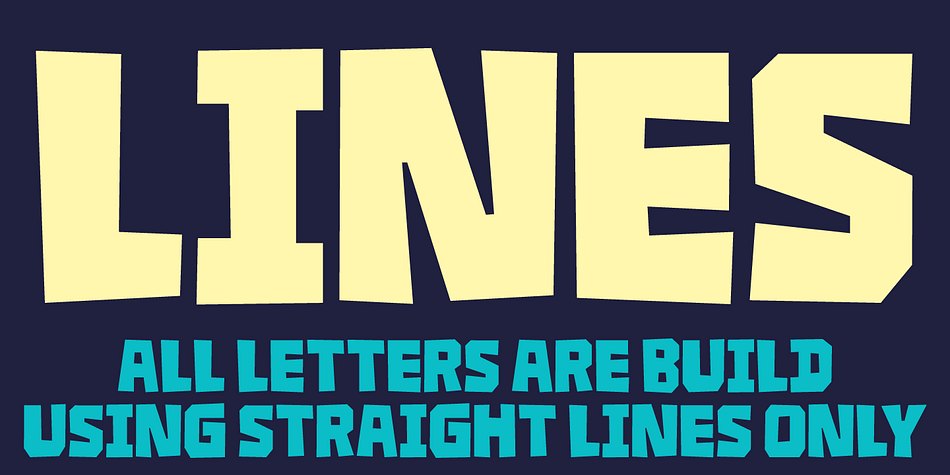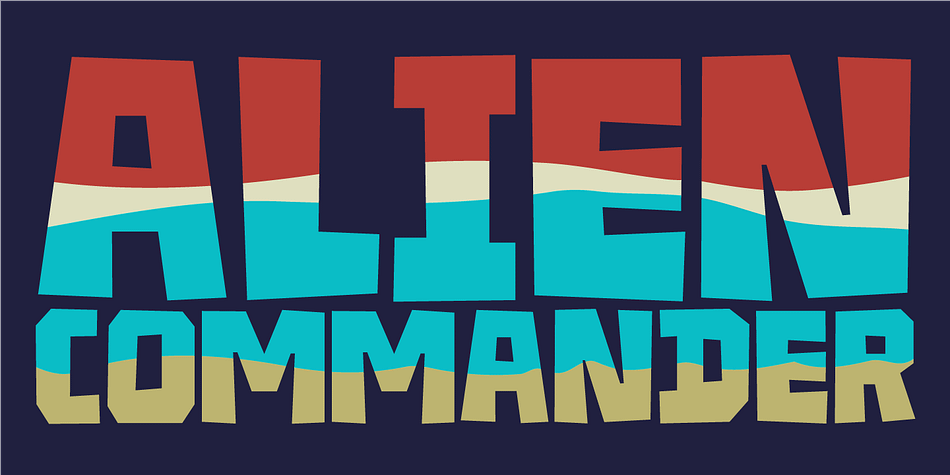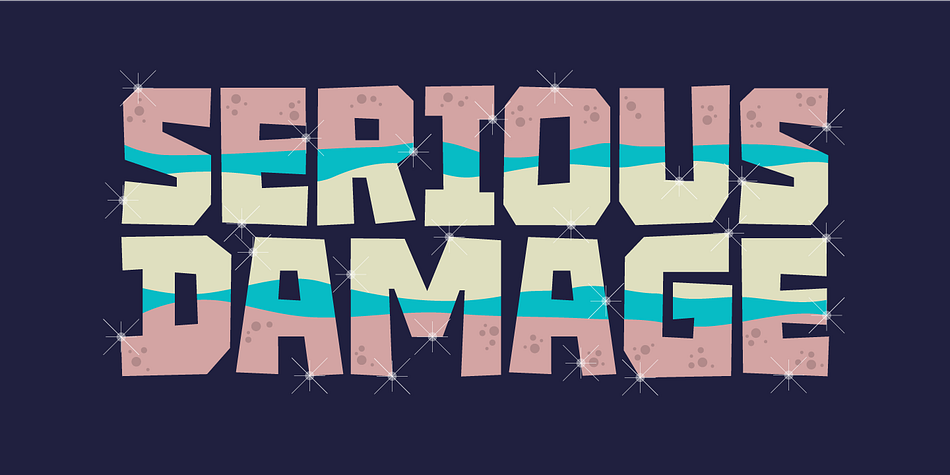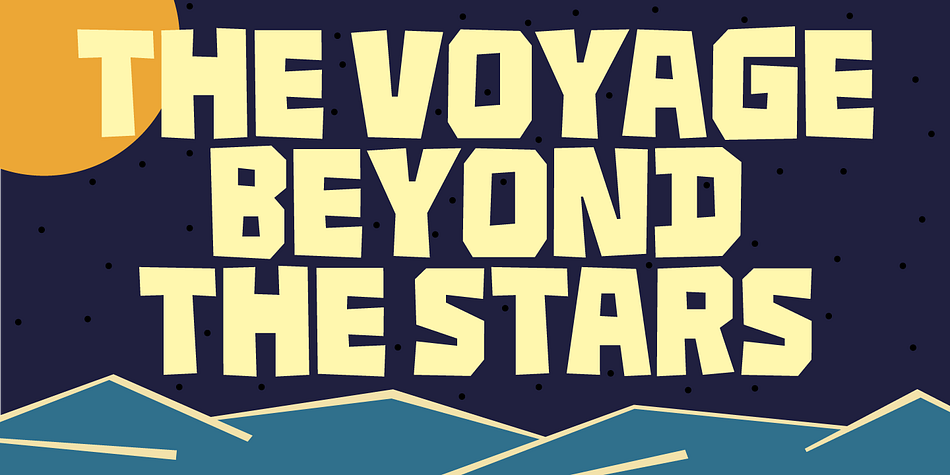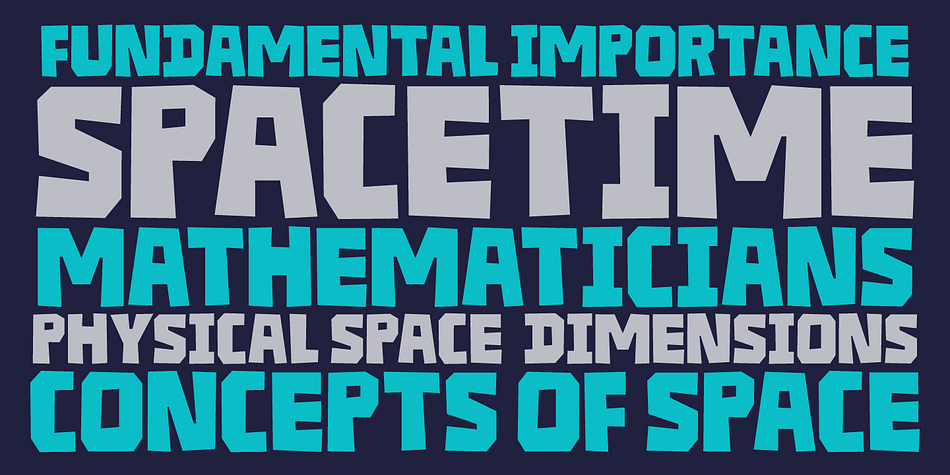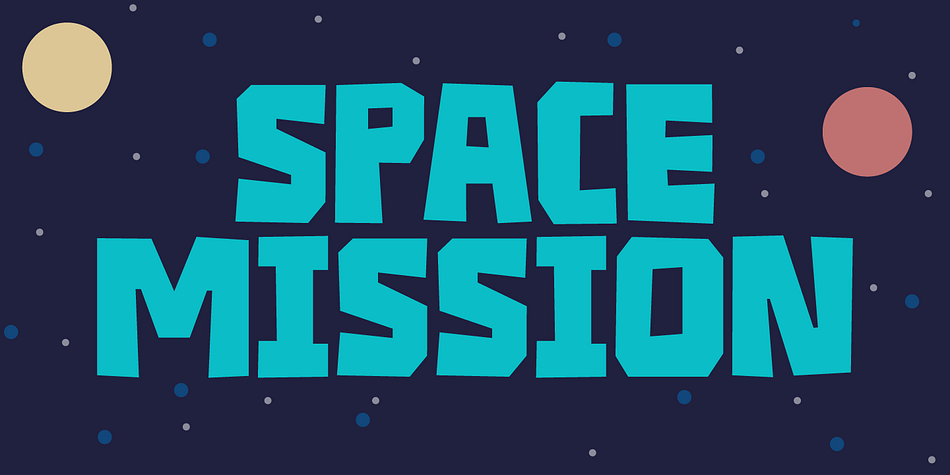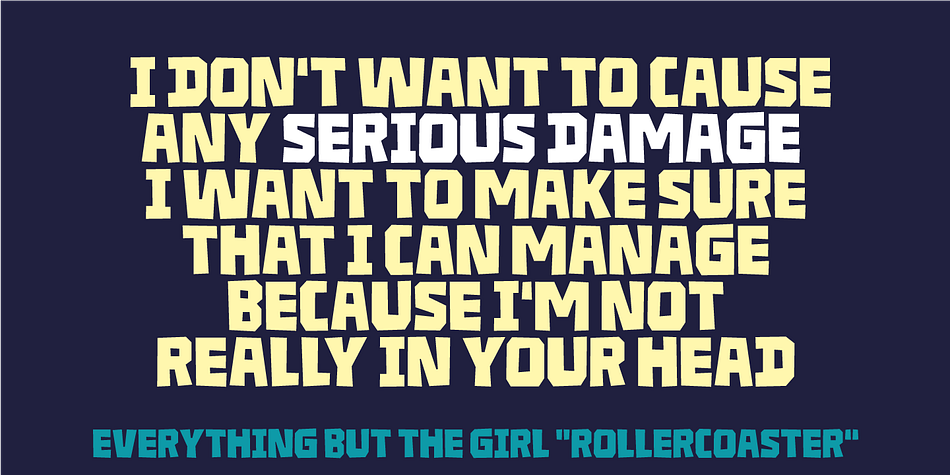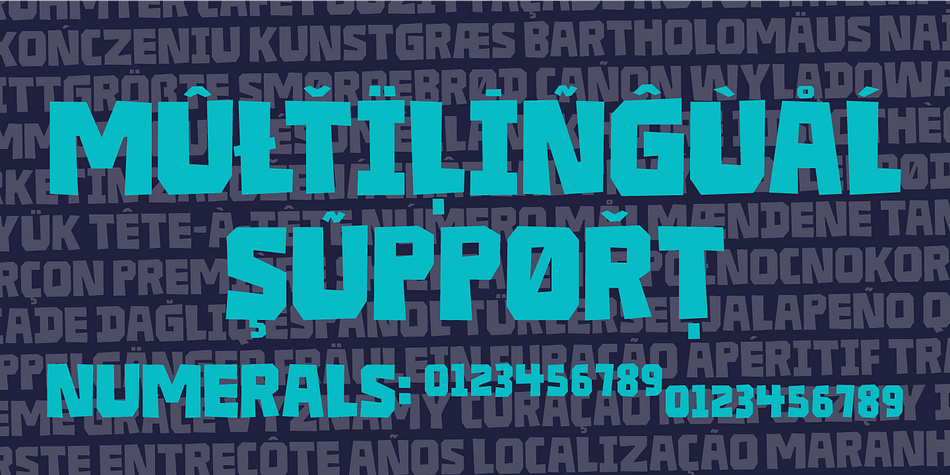
SERIOUS DAMAGE
Designed by Jakob Fischer, Serious Damage is a display sans font family. This typeface has two styles and was published by Pizzadude.dk.
It came from a distant solar system, beyond any space we know. With superior knowledge and the ability to totally destroy the world as we know it…unless we act now…and find the strength to…arghhh…
Naaah, I am just pulling your leg. The Serious Damage font could be used for something dramatic as the font for a movie poster, featuring the next “earth will be destroyed by aliens” movie. But it is suitable for more than that!
With its straight lines and chunky letters, dramatic or not, Serious Damage could be a good choice!